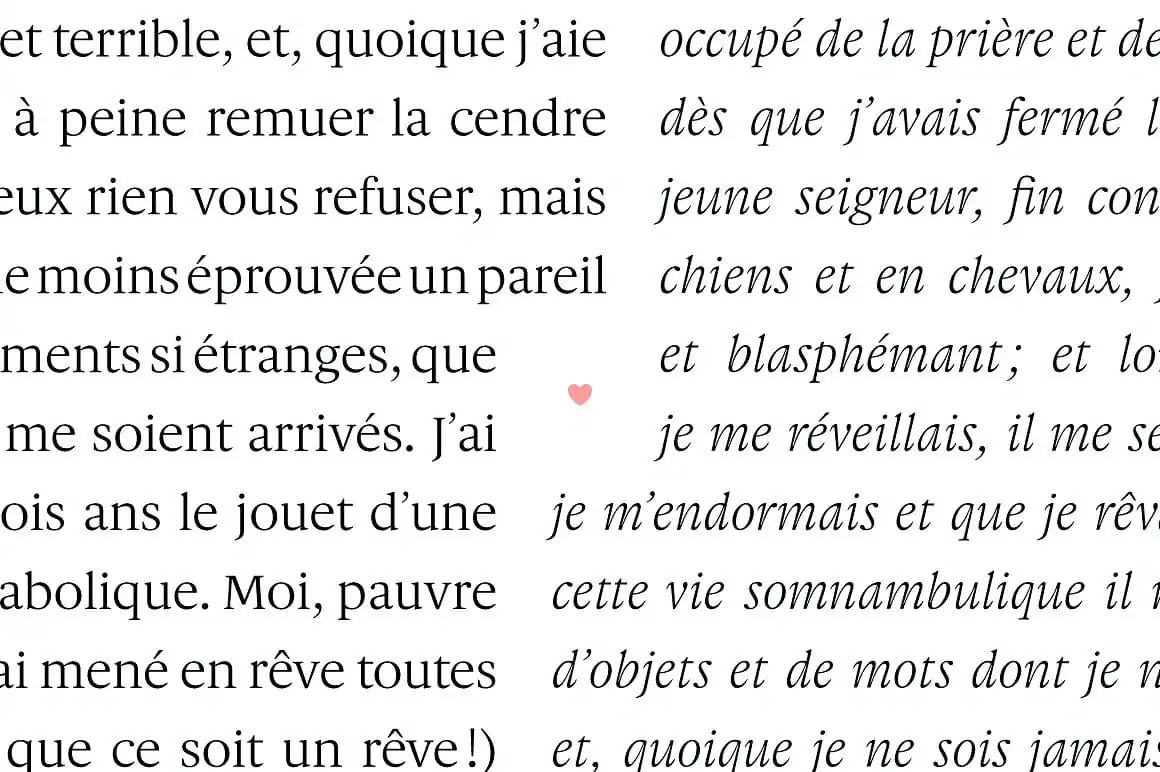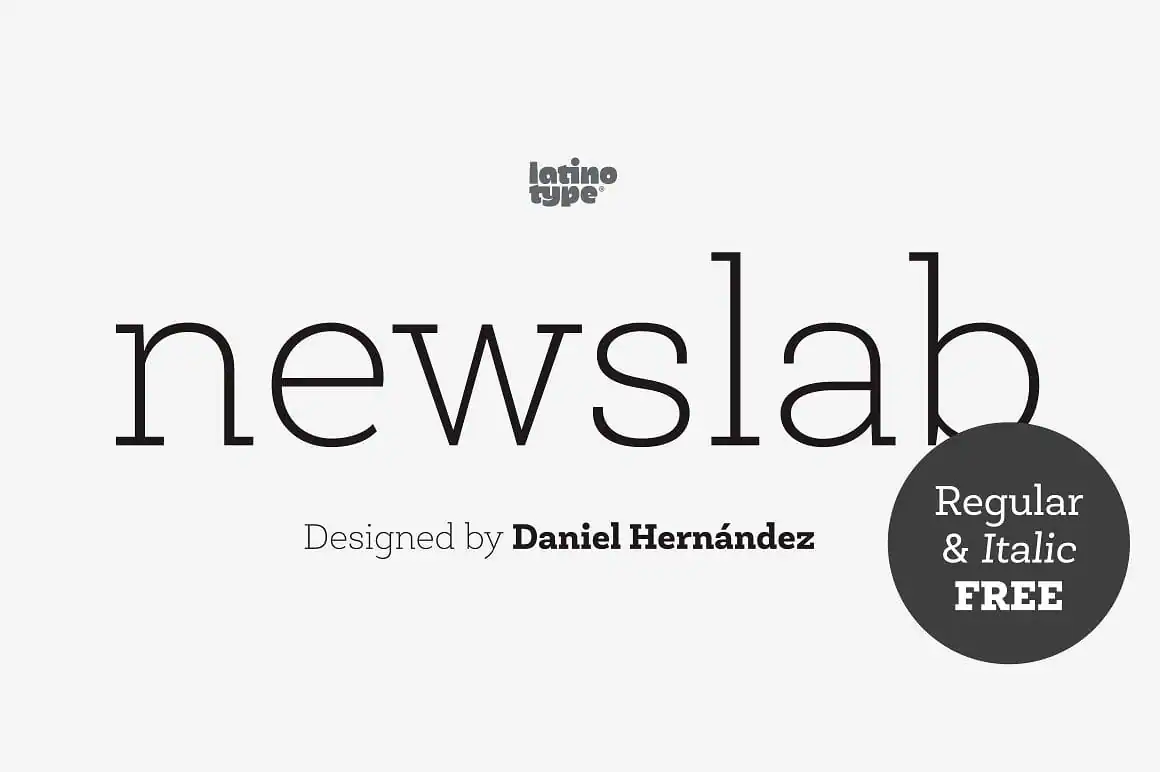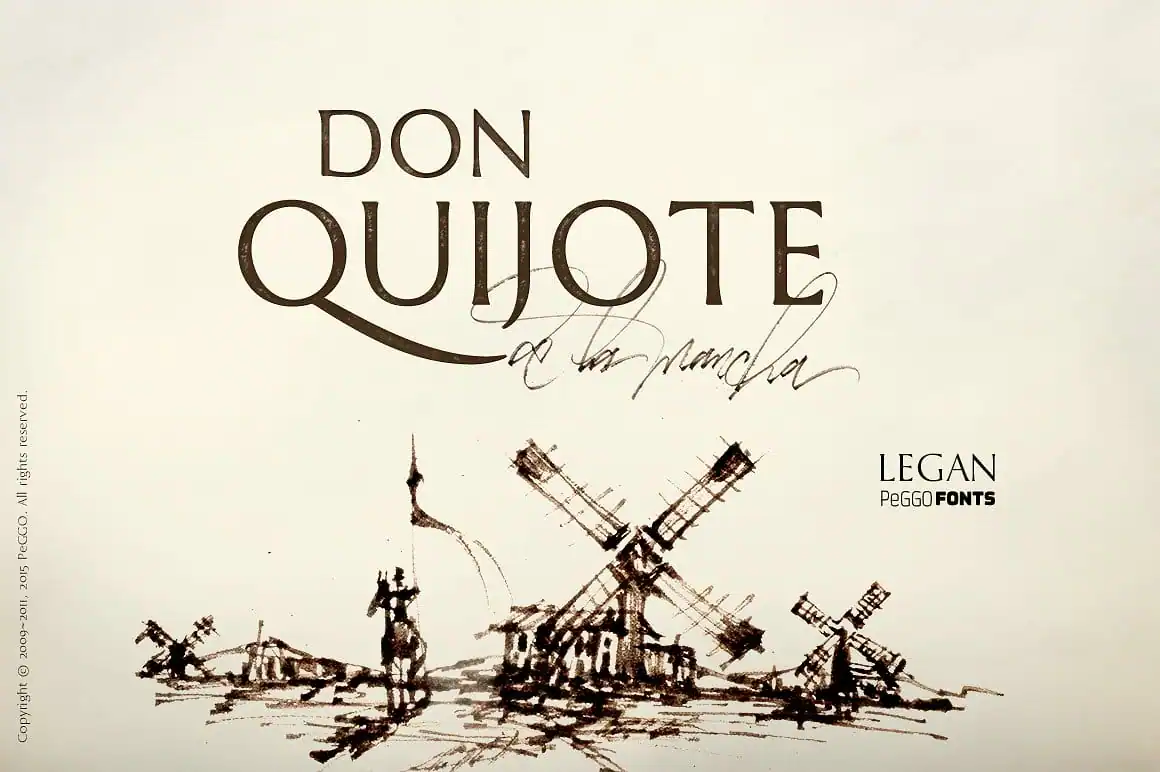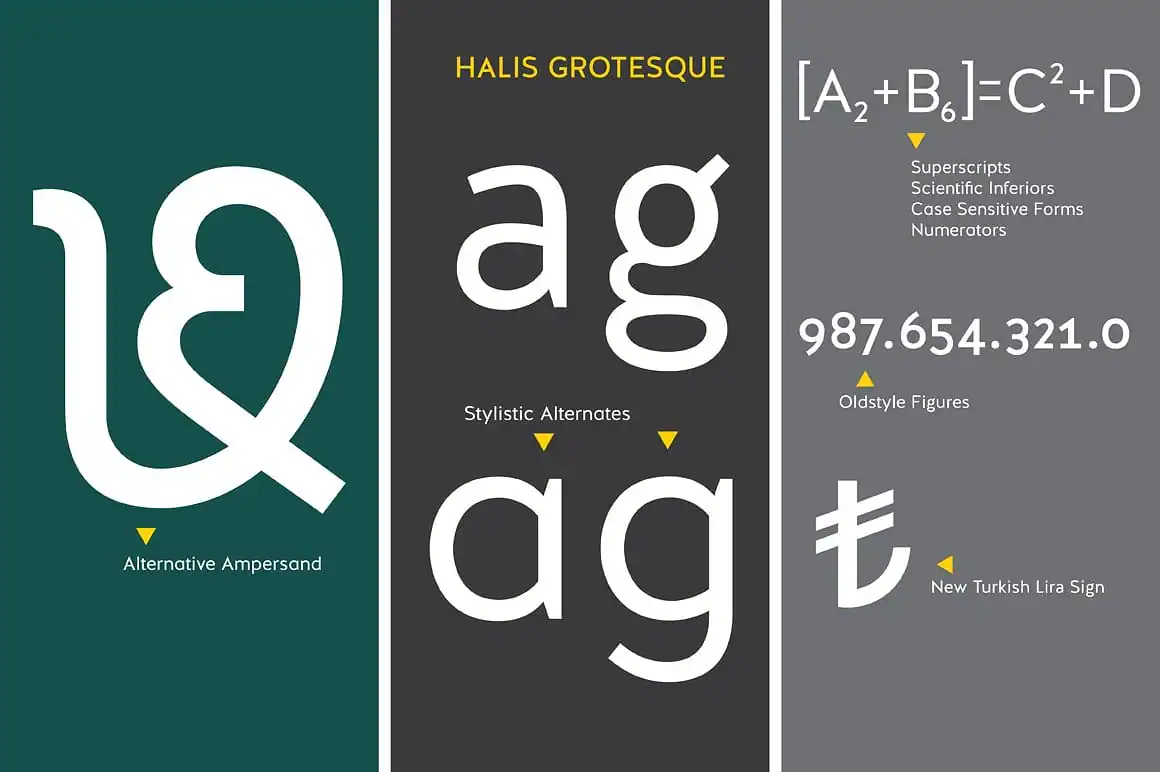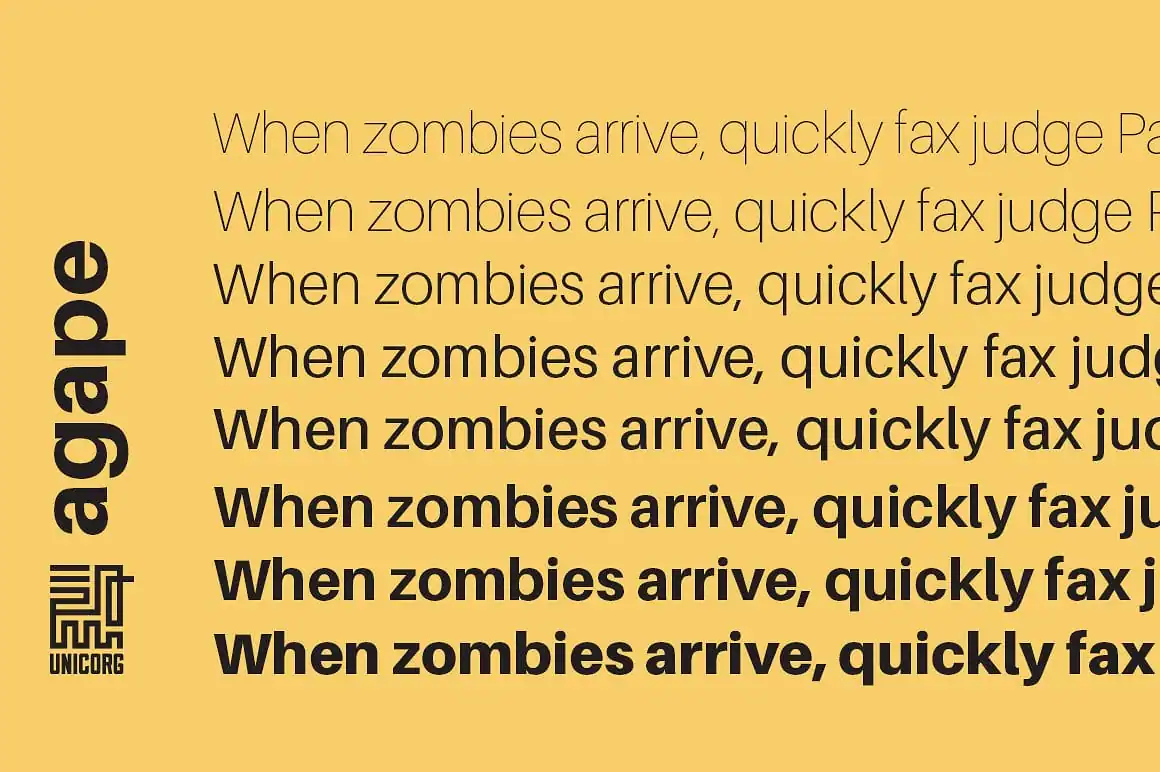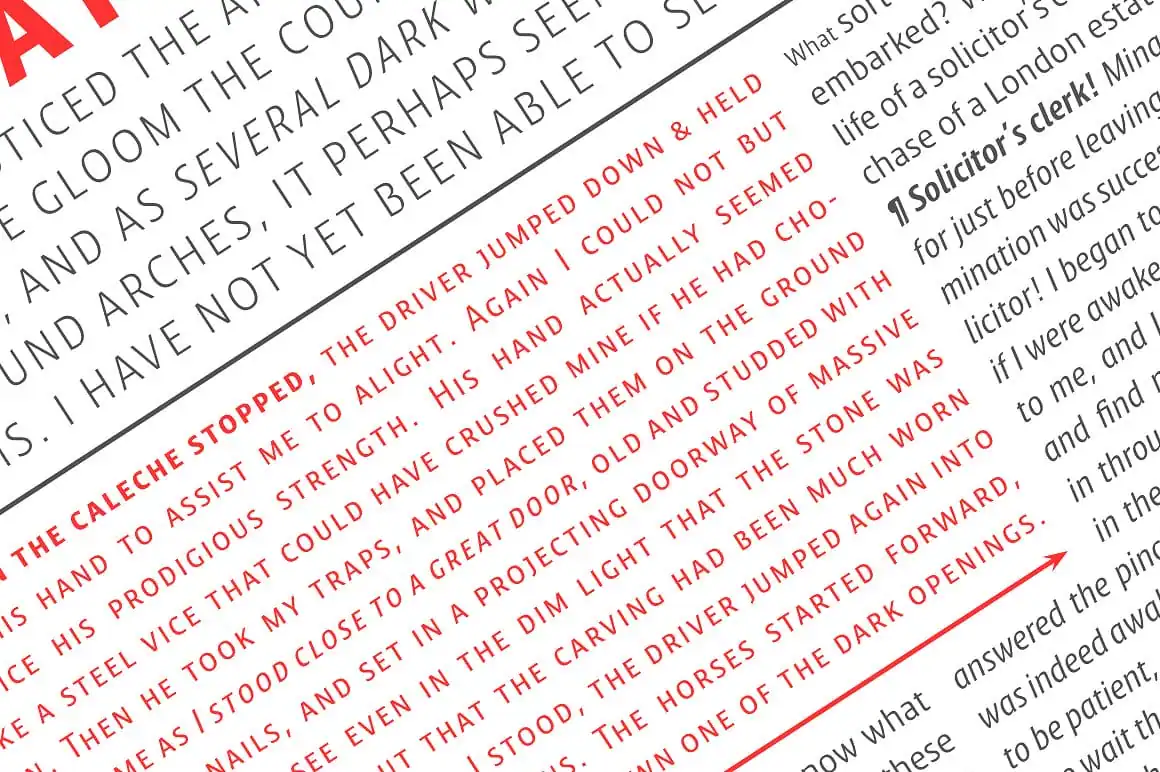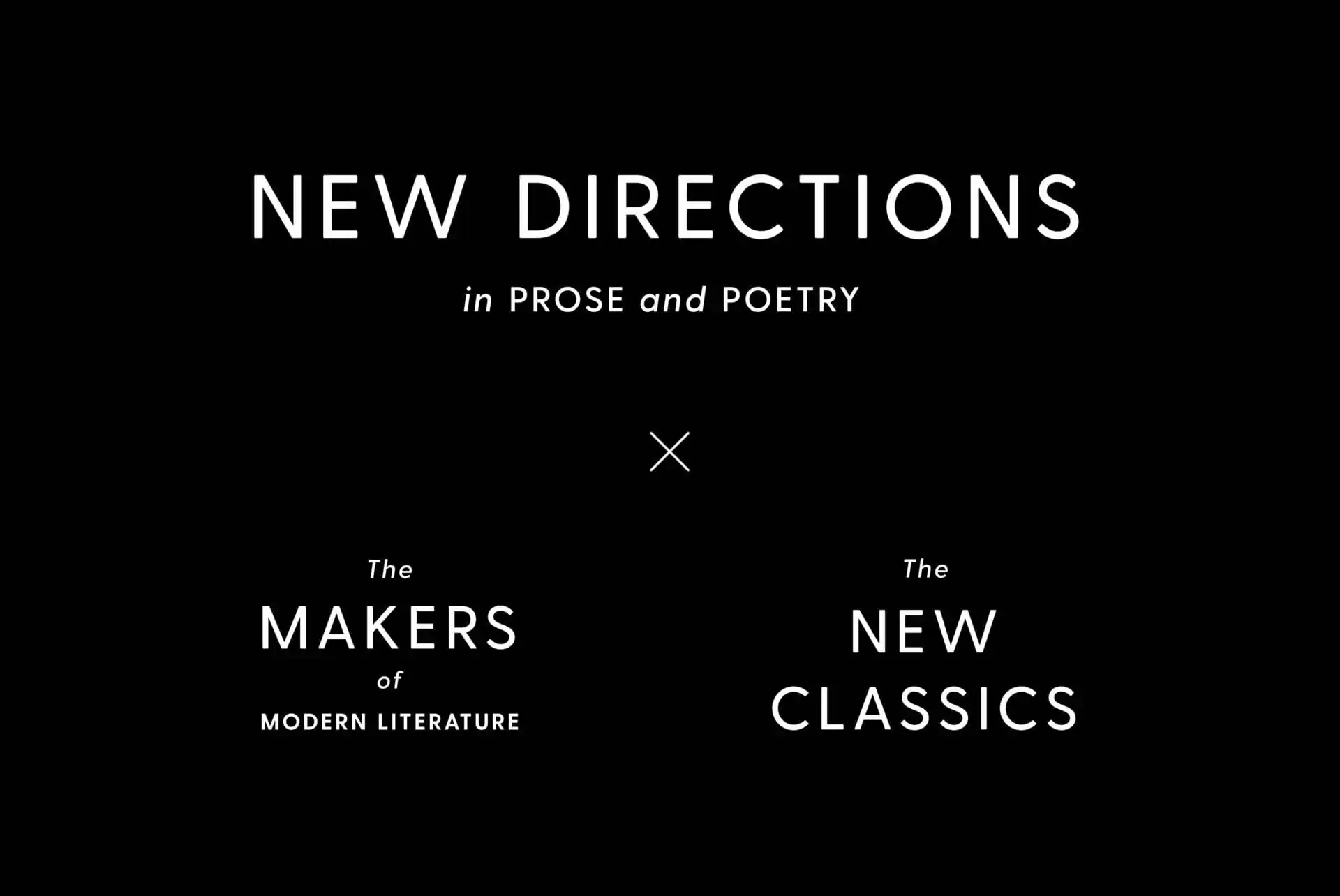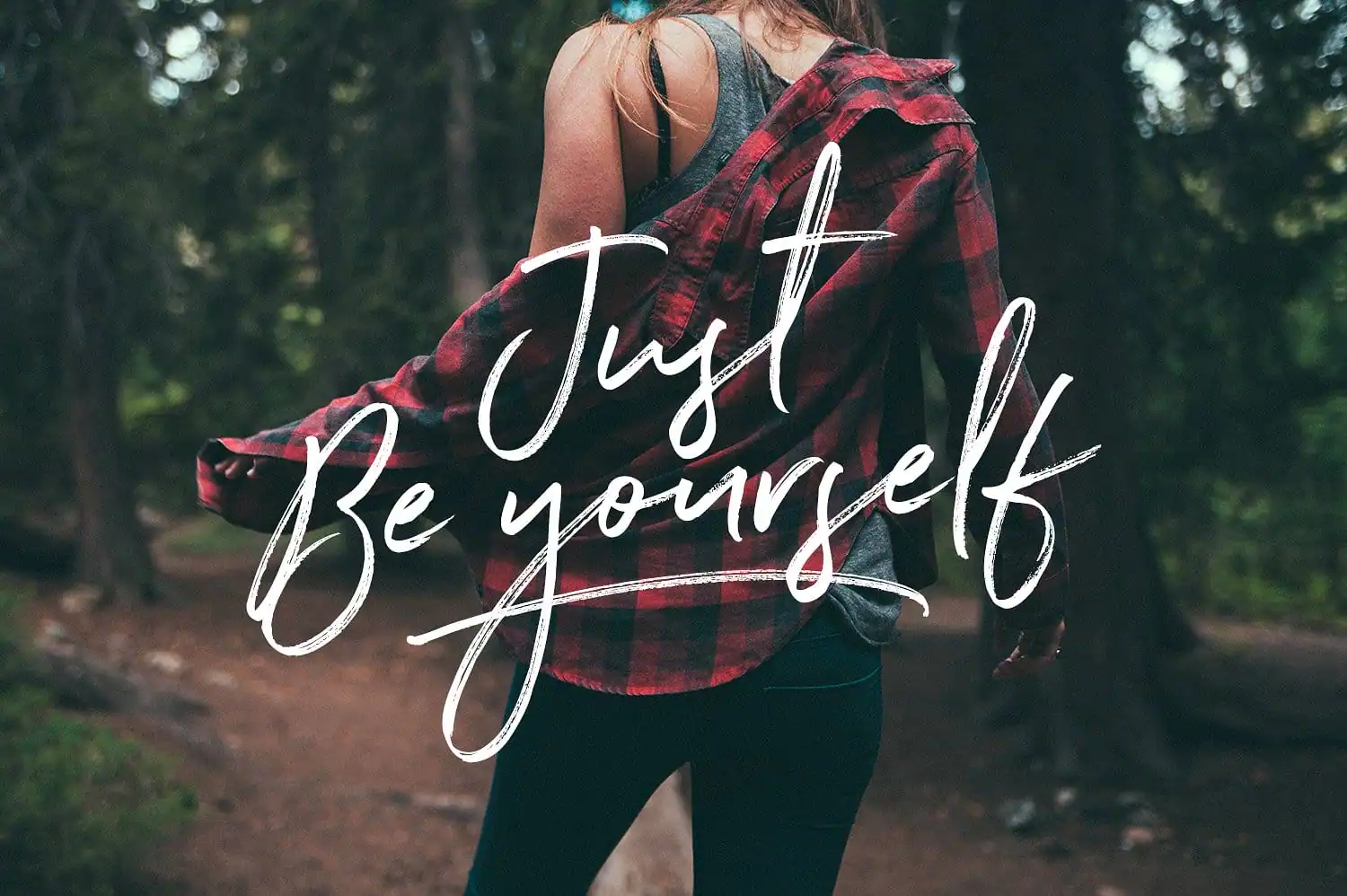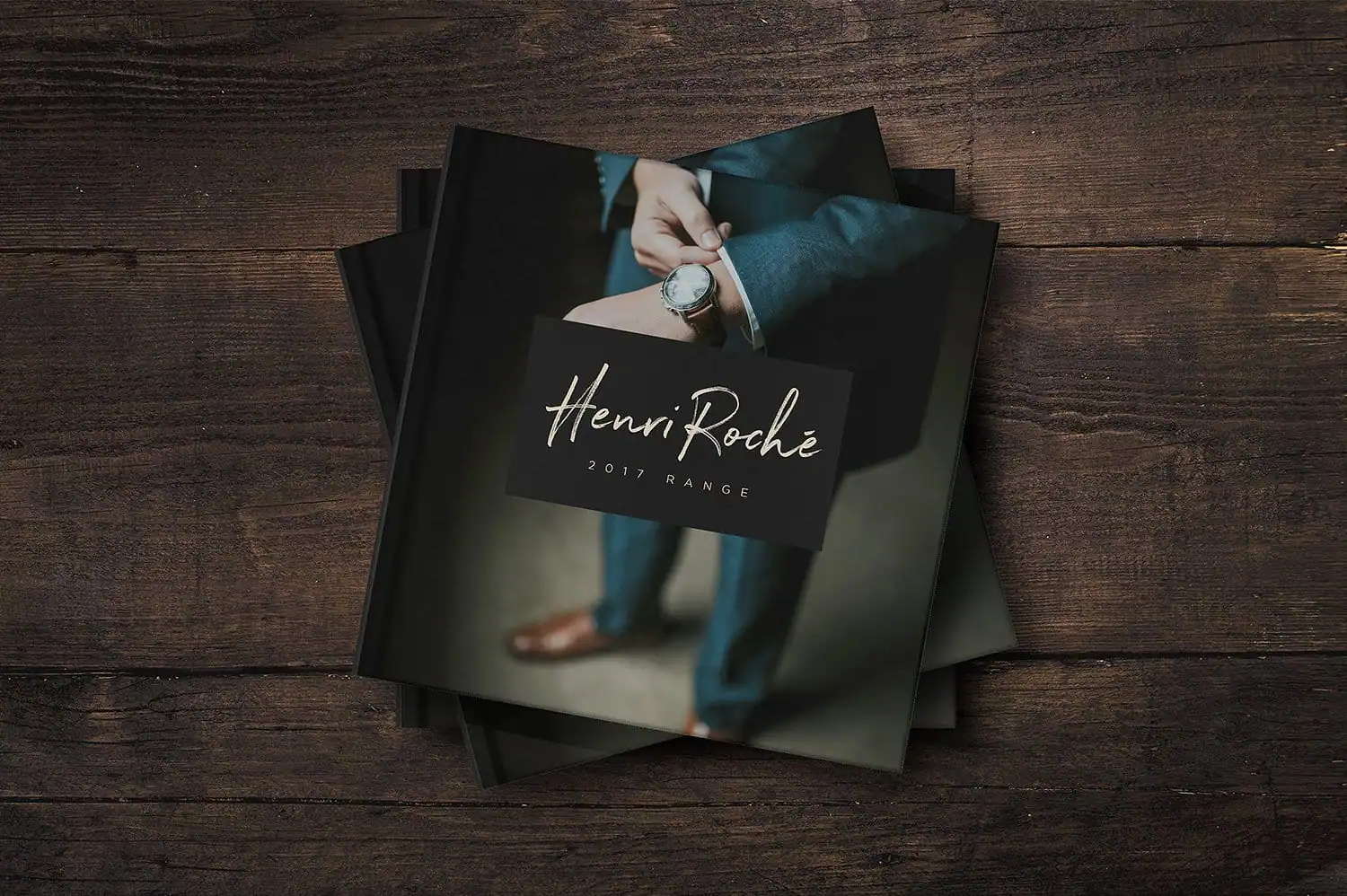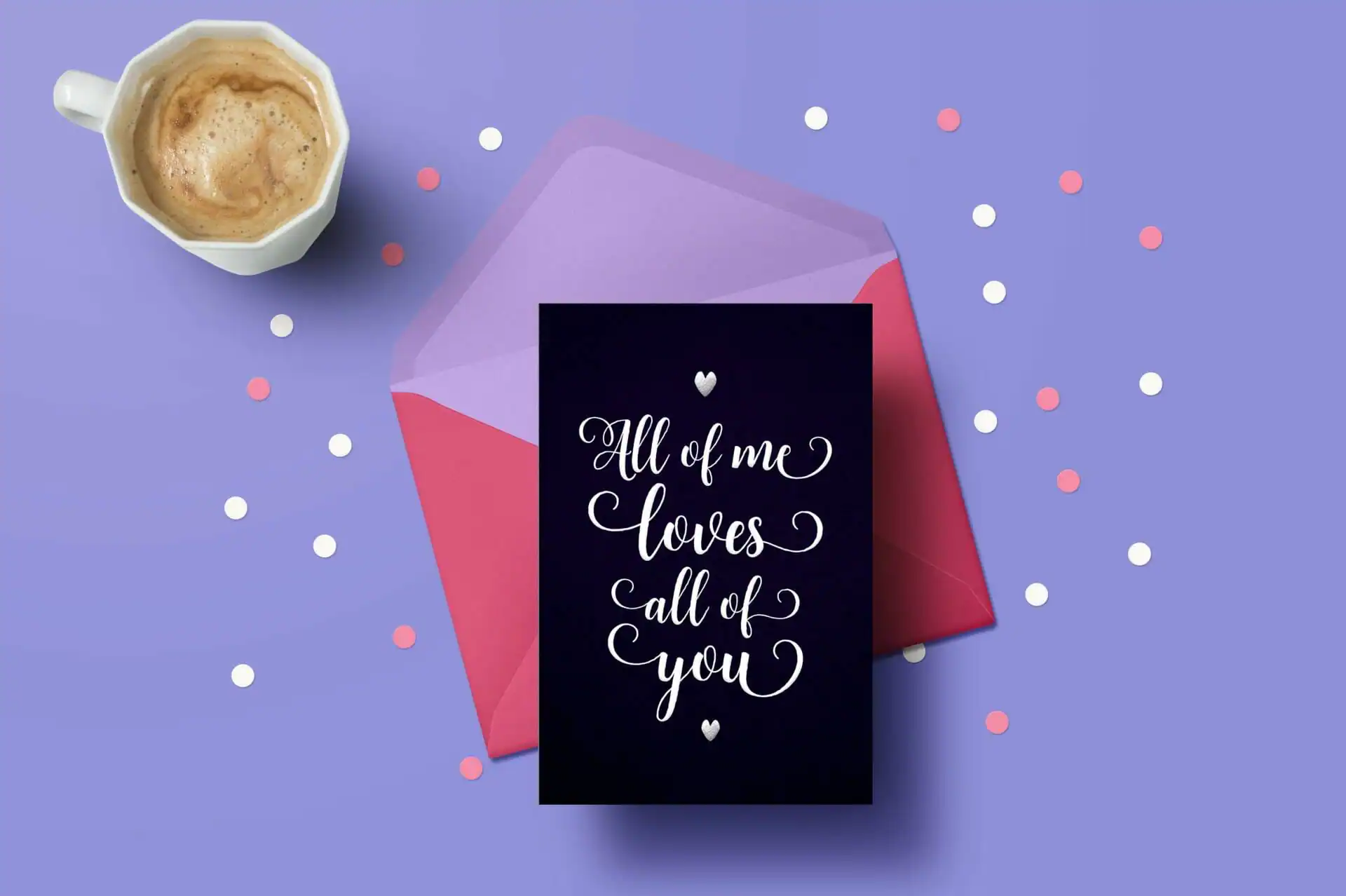
The Visual Guide to Font Styles
Learning about typestyles is a great way to improve your design game. Understanding the wide variety of styles, their history and visual characteristics, helps designers make more informed choices and come up with better type combinations for their projects. Outlined here are the major type classifications. To help recognize the typestyles in the wild, we’ve included some choice typefaces at Creative Market.
Serif Typestyles
Serif typefaces originated with the Latin alphabet and words carved into stone during the Roman antiquity or classical era. The typestyle is defined by the serif which is the small line or shape attached to the end of a letter or symbol.
Old Style or Garaldes
Old Style serifs were created from the 15th to 18th century and include many of the original Roman types. The typestyle is recognizable by its quaint look and more specifically by the letters diagonal stress on curved strokes and somewhat heavy hairlines. Well-known examples of this font style are Garamond, Caslon and Bembo. Old style fonts are commonly used in newspaper design.
Gauthier
Gauthier from Black Foundry is a Renaissance style typeface made contemporary. Gauthier would be an excellent choice for long passages of text.
Transitional
Transitional fonts come from the Enlightenment, a revolutionary time of change during the 17th century. The type styles of this era are as their name suggests, they are ‘transitional’ between Old Style and Modern typefaces. Transitional font styles are a very common serif type. Examples of famous transitional typefaces include Baskerville, Bookman, Georgia and Times New Roman. Characteristics of a transitional font are that it stands upright, the thick and thin strokes have ample contrast, and the serifs are wider and bracketed.
Adriene Text
The font Adriene Text by Typefolio is a clear example of a transitional typeface. Adriene Text would be a good choice for business cards and stationery.
Slab or Egyptian
The Slab Serif or Egyptian typestyle rose to popularity in the 19th century and was a favorite of the advertising industry. The bold weighted display version of this typestyle has a lot of visual impact and was used on pamphlets, posters, and billboards. Slab serifs can be identified by their heavy serifs with no bracketing. Famous slab typefaces include ITC Lubalin Graph and Rockwell.
Newslab
Newslab from Latinotype is a versatile and creative example of a slab serif typeface. Newslab is the combination of three other typefaces: Andes, Sanchez, and Roble. The font has a whopping 16 variants and eight weights and is well-suited for any design project.
Glyphic
Glyphic fonts were first seen carved in stone and have a decidedly classical look. They are recognizable by their sharp pointed serifs that are sometimes called “thorn” serifs. Glyphic fonts are often used for luxury brands and in real estate. Penumbra, Albertus and Pompei are well-known examples of this font style.
Legan
Legan from Peggo Fonts is a great example of a contemporary glyphic font that is inspired by the classical patterns of this typestyle. The font is fully-featured with 1,464 glyphs and an extended latin set.
Modern, Didone or Neo-Classical
Modern serifs, a.k.a. Didones and Neo-Classicals, date back to the late 1700s and are elegant and sophisticated in style. Modern typefaces are seen often in fashion and luxury goods design projects. The logo for Vogue magazine and Christian Dior both use modern style serifs. You can detect the modern style by the extreme difference between thick and thin strokes and the serifs without bracketing. Famous examples of this type style are Didot and Bodoni.
Port
Port from Onrepeat Types is a chic example of a contemporary modern font that really accentuates the characteristics of this typestyle artfully.
Sans Serif Typestyles
Sans serif typestyles are simply typefaces that do not have serifs at the end of strokes. Sans serifs are commonly used for computers and mobiles because digital displays have difficulty visually resolving fine details like serifs. Sans serifs are sometimes referred to as Gothic typefaces but that is rare these days.
Muller
Muller from Font Fabric is an excellent sans serif typeface that has twenty weights from thin to heavy plus full italics. The font family was designed to work well for small text and very large and is a highly versatile universal typeface suitable for all design project types.
Grotesque
Grotesque typefaces are early grotesques, not the newer ones. Grotesques are best known for their idiosyncracies and errors like uneven weights and irregular curves. Designers may choose a grotesque over a neo-grotesque however because these quirks can add visual character to a design. A well-known example of this font style is Franklin Gothic.
Halis Grotesque